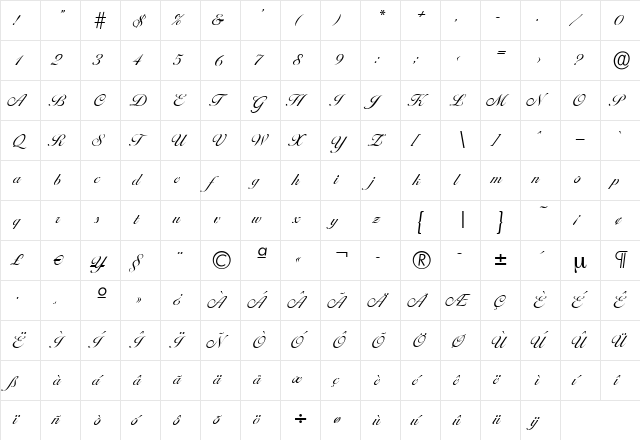
NicholasBecker-Light Regular
Design Context for NicholasBecker-Light Typeface
NicholasBecker-Light takes a measured approach to typography — its balanced proportions and neutral character make it a reliable workhorse for both digital and print work. Its slender proportions lend an understated elegance to any composition.